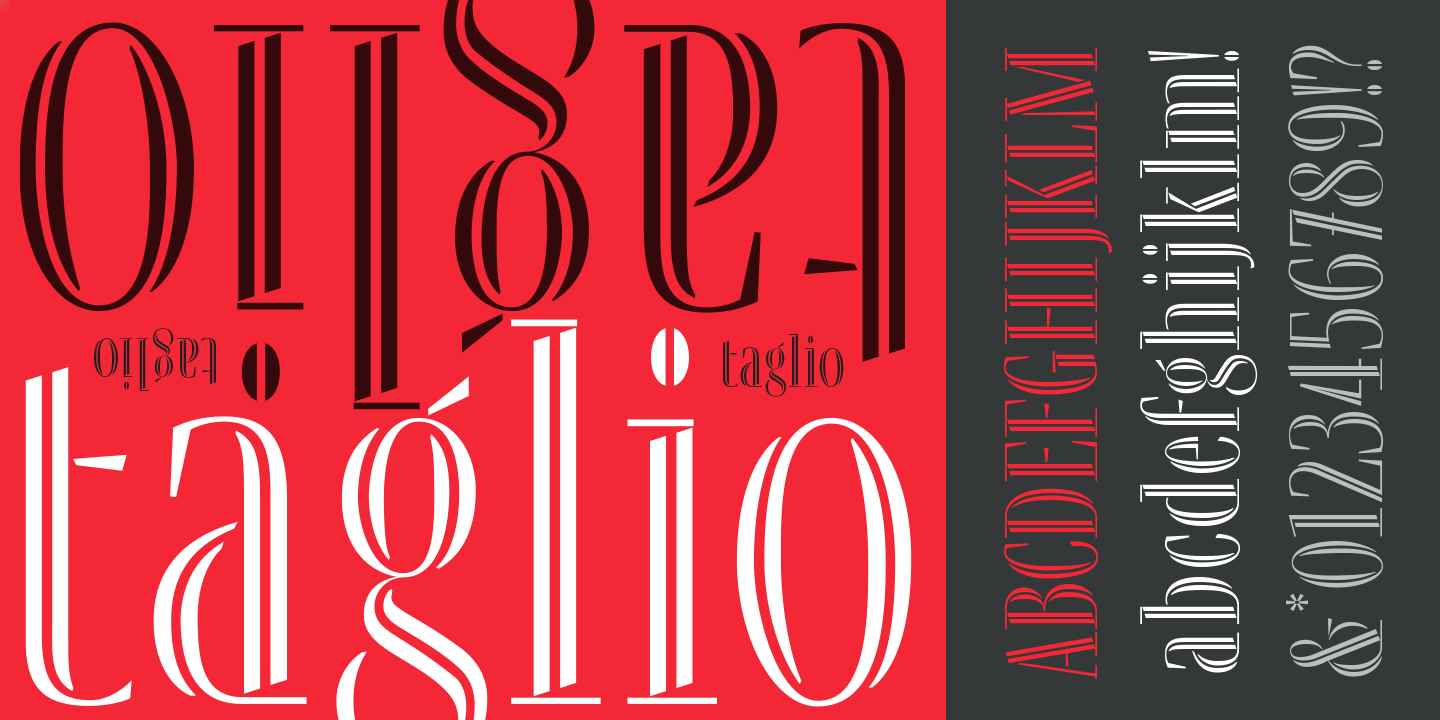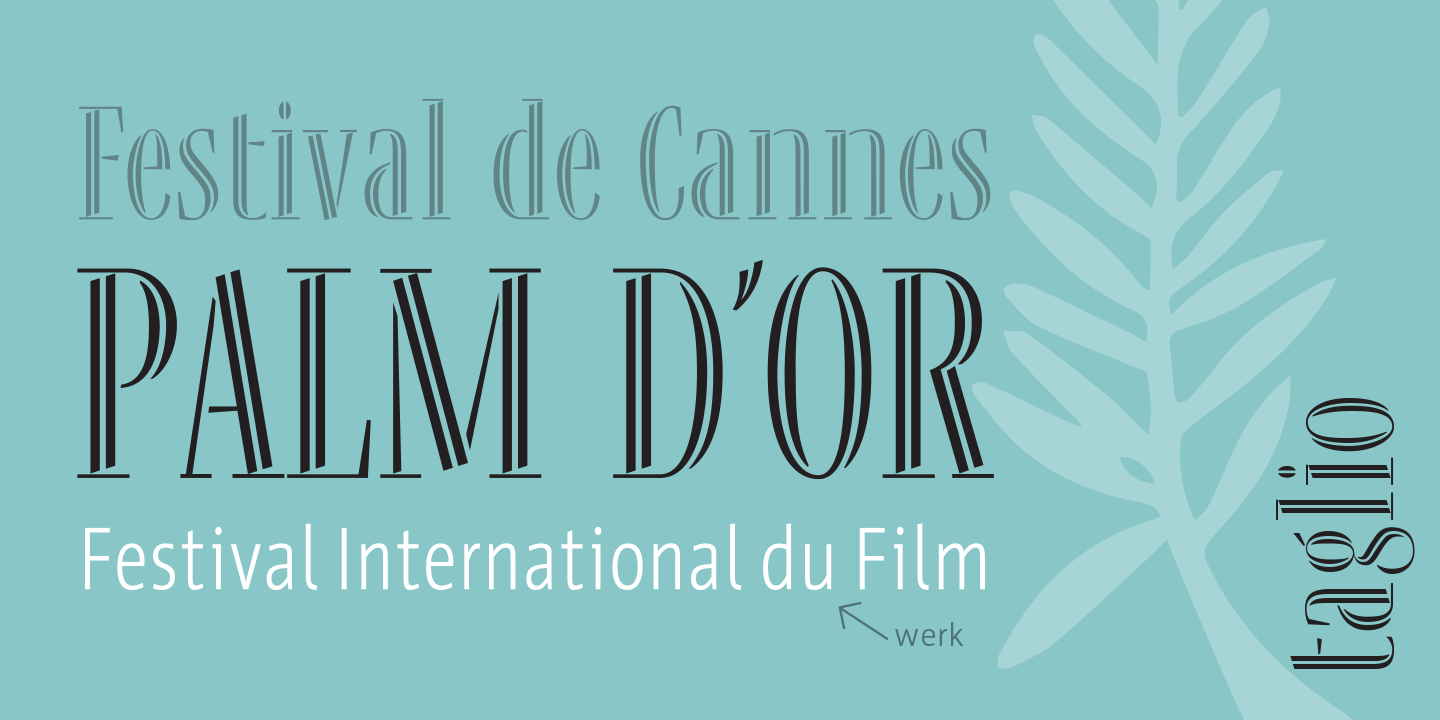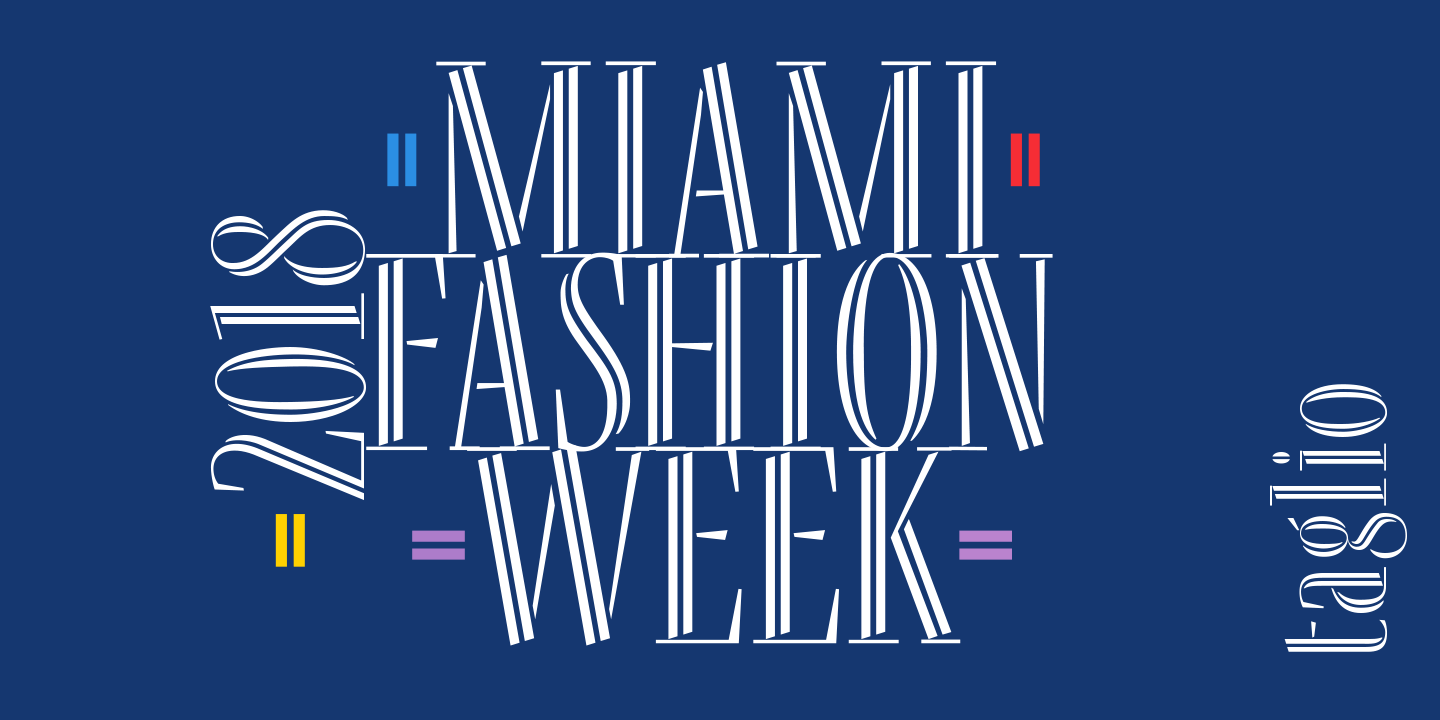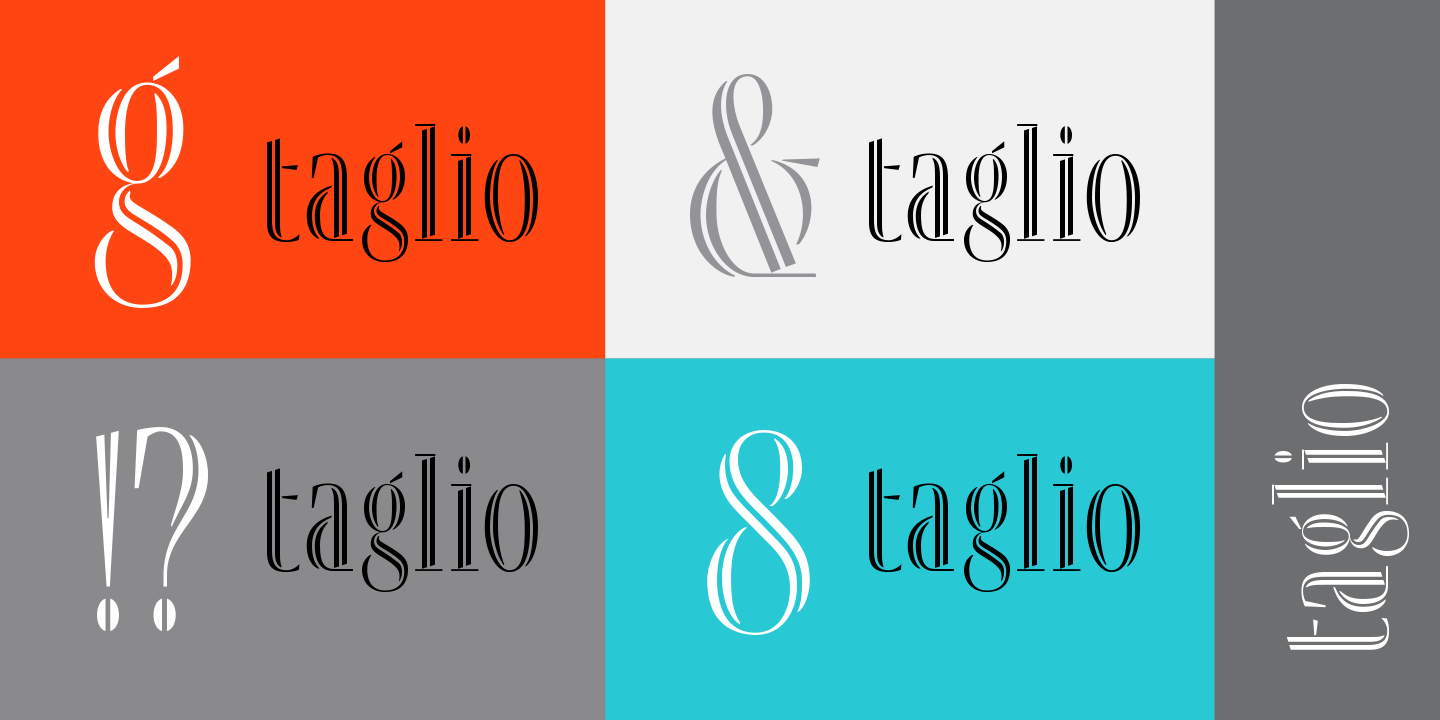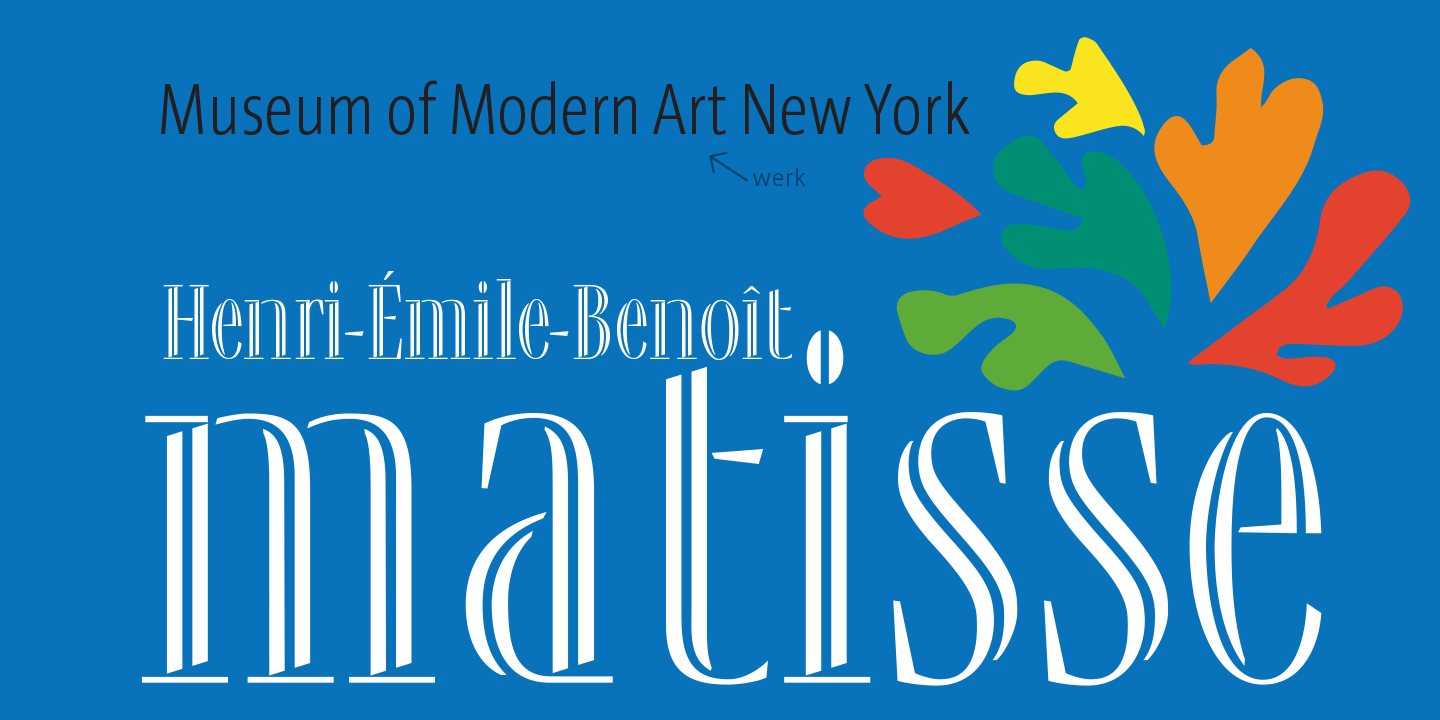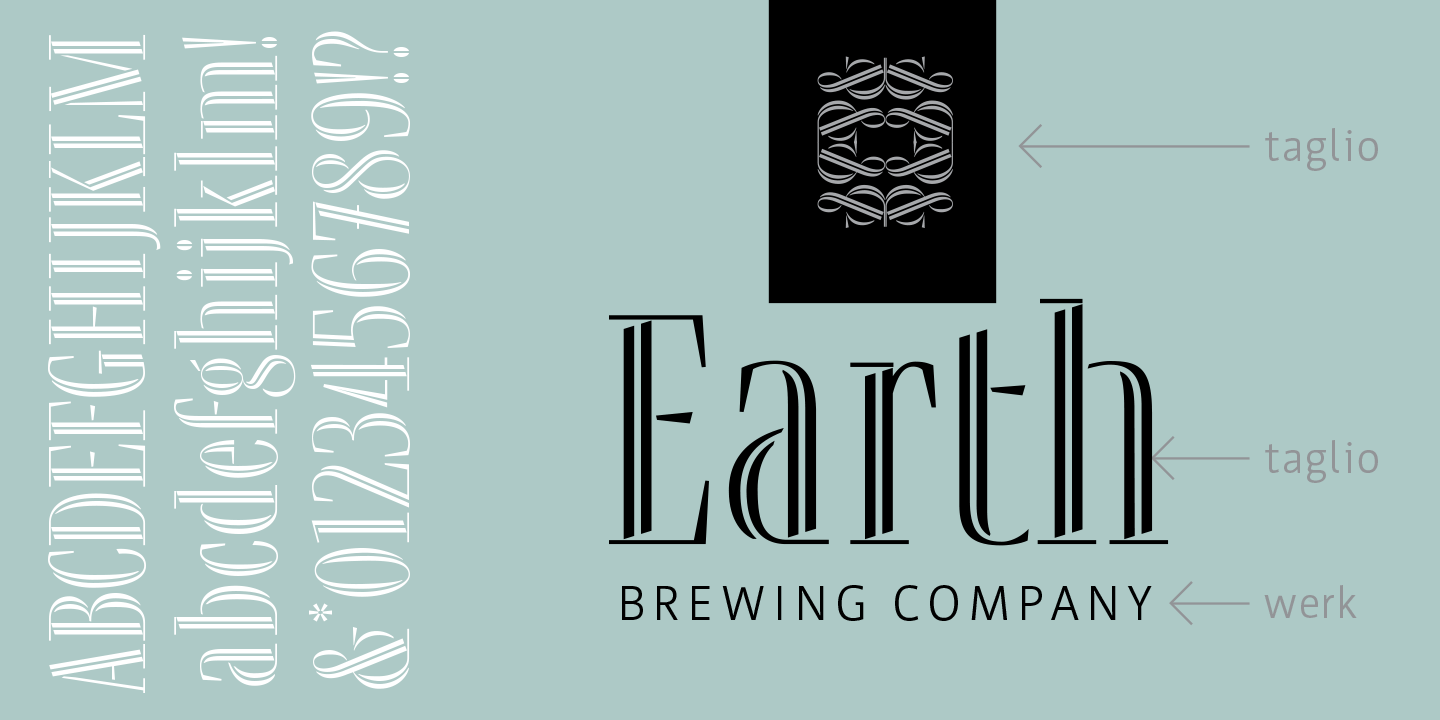
Taglio
About Taglio
Taglio\’s name is derived from intaglio, which means ?incised carving? or ?an impression from an engraving?. Indeed, Taglio looks like an incised engraving with a contemporary calligraphic interpretation. The down strokes start with a single horizontal…